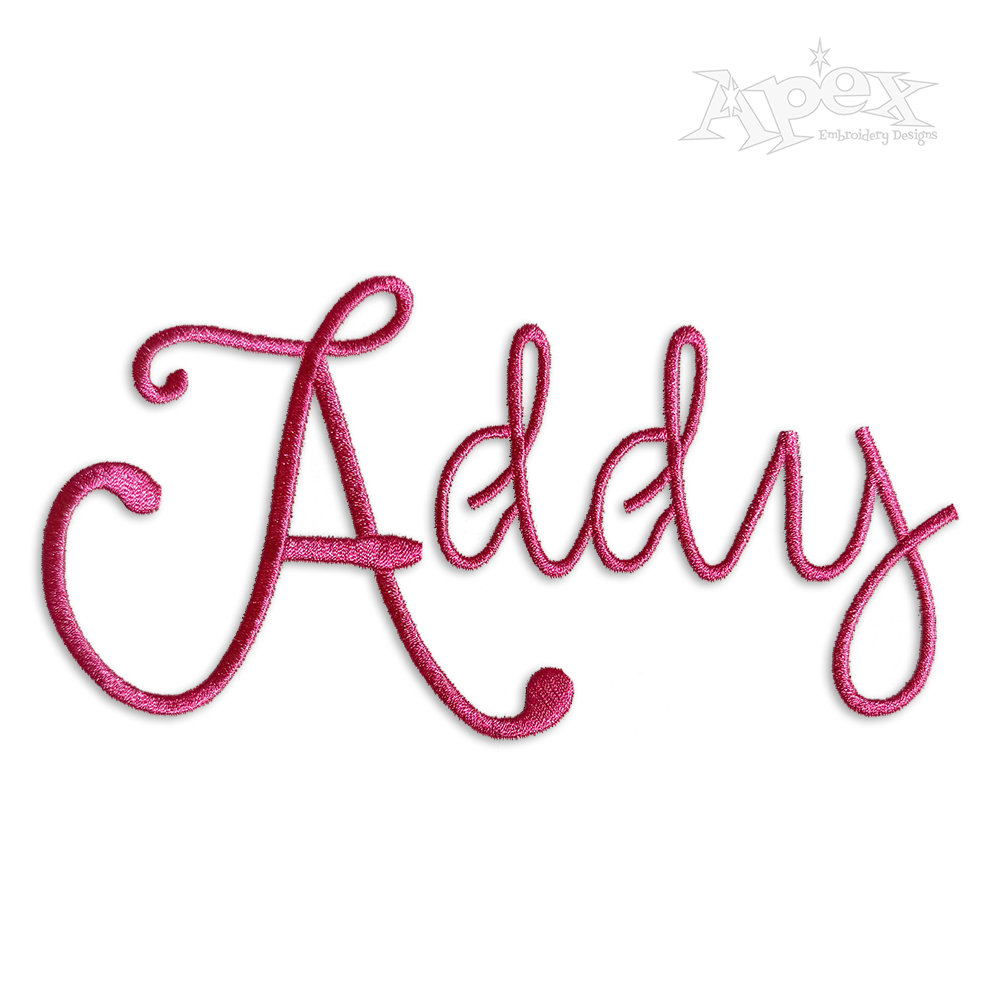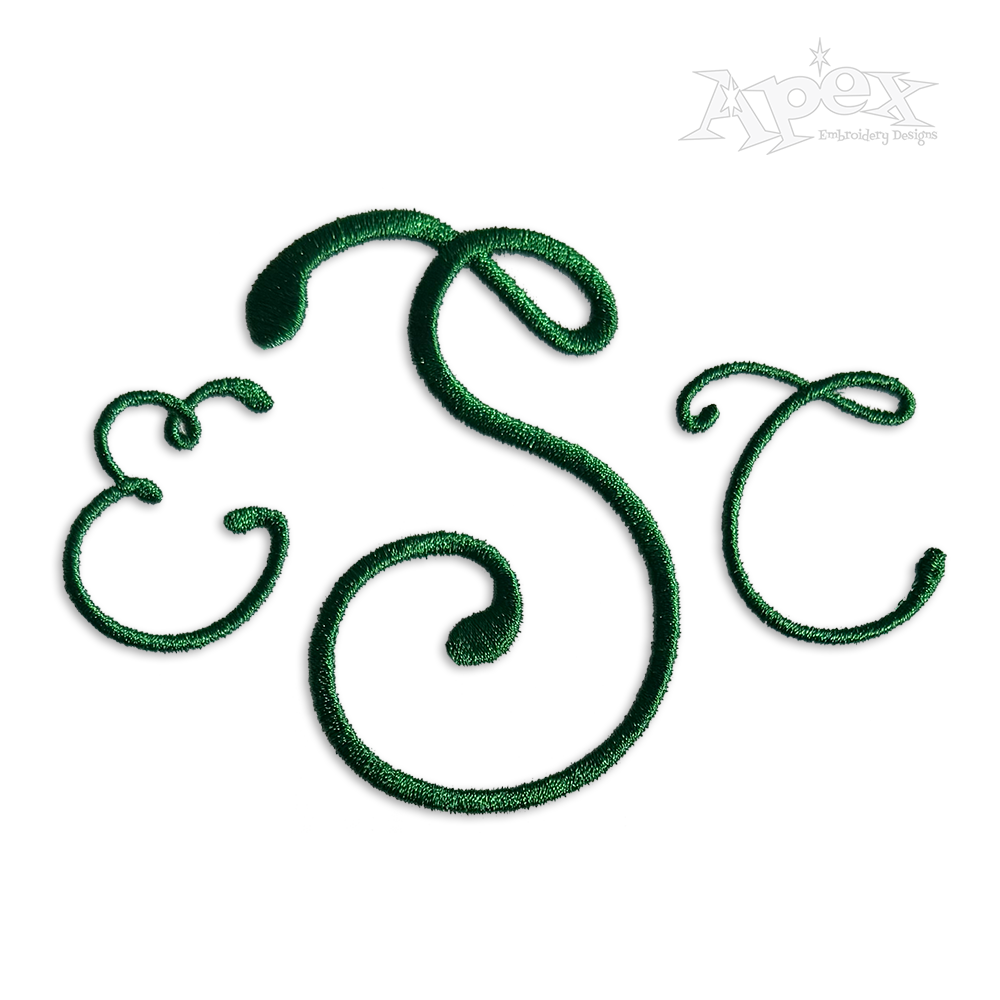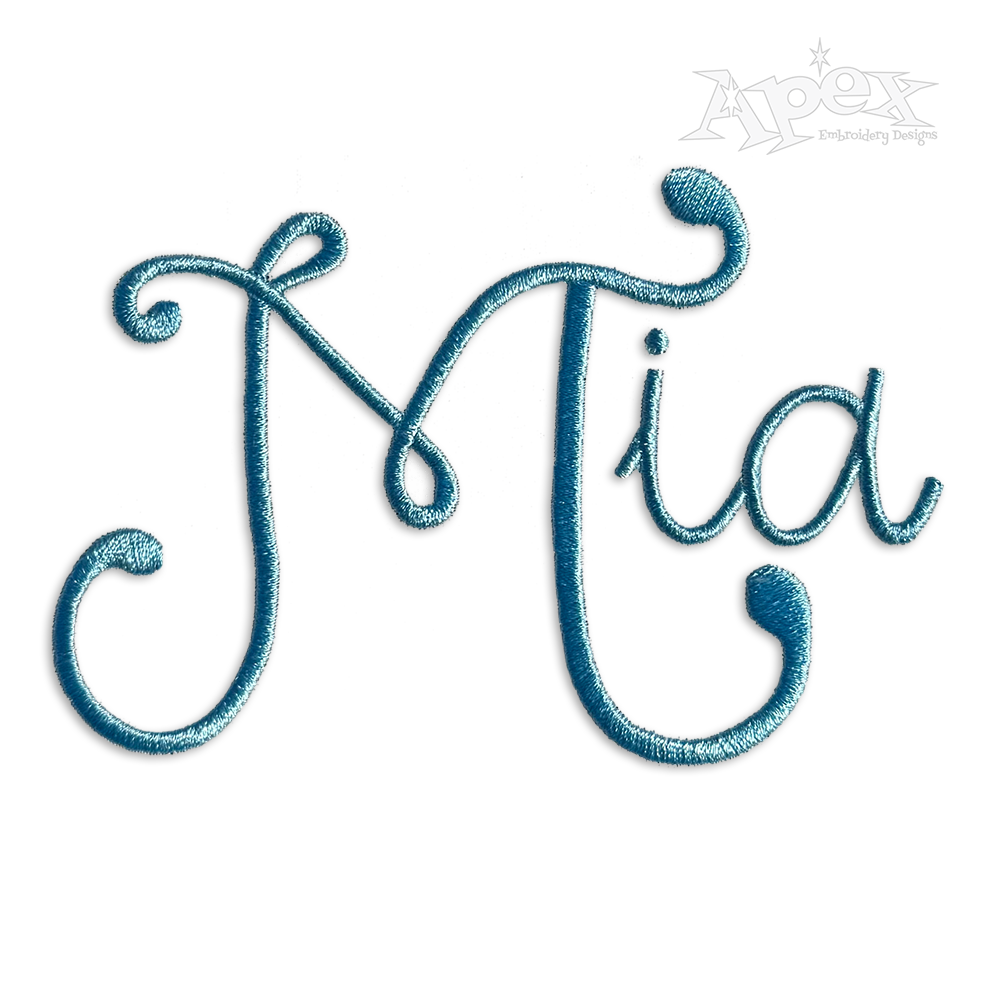
Baton Rouge Embroidery Font
Drawing inspiration from the timeless architecture and grand, moss-draped avenues of Louisiana’s capital, the Baton Rouge Embroidery Font brings a stately, gracious presence to the embroidery hoop. When digitizing this collection, our studio sought to balance the dignified structure of classic Southern monograms with an effortless, modern fluidity. Every satin column is mapped to catch the light with rich dimension, creating a polished, bespoke signature that feels simultaneously storied and fresh—an exquisite choice for makers dedicated to the art of heirloom personalization.
Project Ideas for Baton Rouge Embroidery Font
The Baton Rouge lettering lends itself effortlessly to both formal occasions and everyday luxuries, offering a crisp, sophisticated finish on a wide variety of woven textiles:
- Bespoke Table Linens: Elevate pure Irish linen dinner napkins, hemstitched runners, and cocktail coasters with tone-on-tone embroidery for elegant entertaining.
- Heirloom Bedding & Nursery Keepsakes: Stitch classic three-letter monograms or birth announcement dates onto cotton sateen pillowcases, pique baby quilts, and christening blankets.
- Bridal Trousseau & Resort Wear: Personalize silky bridal party robes, crisp poplin button-downs, beach tunics, and wide sun-hat bands with clean, legible script.
- Luxury Gifting: Create treasured, custom gifts by adding crisp initial crests to heavy canvas market totes, plush velvet travel pouches, and waffle-weave bath sheets.
To maximize the architectural beauty and visual balance of the Baton Rouge letterforms, consider these studio-tested placements:
- Corner Diagonal on Napkins: Position single initials or full monograms at a 45-degree angle, set 1.5 to 2 inches from the folded hem corner, allowing the embroidery to display beautifully when folded or placed in a napkin ring.
- Center Chest & Left Pocket: For button-down shirts, sweaters, and tailored robes, center the 2-inch or 3-inch glyphs approximately 7 to 9 inches down from the shoulder seam and midway between the placket and side seam.
- Pillow Shams & Duvets: Anchor your design dead-center on decorative euro shams or positioned gracefully across the top-third fold of a duvet cover using the bold 4-inch scale.
- Sleeve Cuff Monograms: Align the 2-inch initials parallel to the cuff edge, positioned approximately one-half inch above the wrist seam for a subtle, bespoke sartorial detail.
Baton Rouge Craft & Letterform Details
True luxury embroidery relies on the nuanced interplay of stitch direction, tension management, and underlay scaffolding. The Baton Rouge font features carefully tapered entries, graceful serif swells, and seamless curve transitions that prevent unnecessary thread buildup. Each character is digitized with directional satin pathing that directs the thread’s natural sheen, producing a luminous, raised relief that stands proud of the fabric weave. By engineering structural underlay specifically tailored to each scale, we have ensured clean, knife-edge borders that resist distortion, puckering, and fabric show-through—even on challenging, open-weave linens and textured terry cloths.